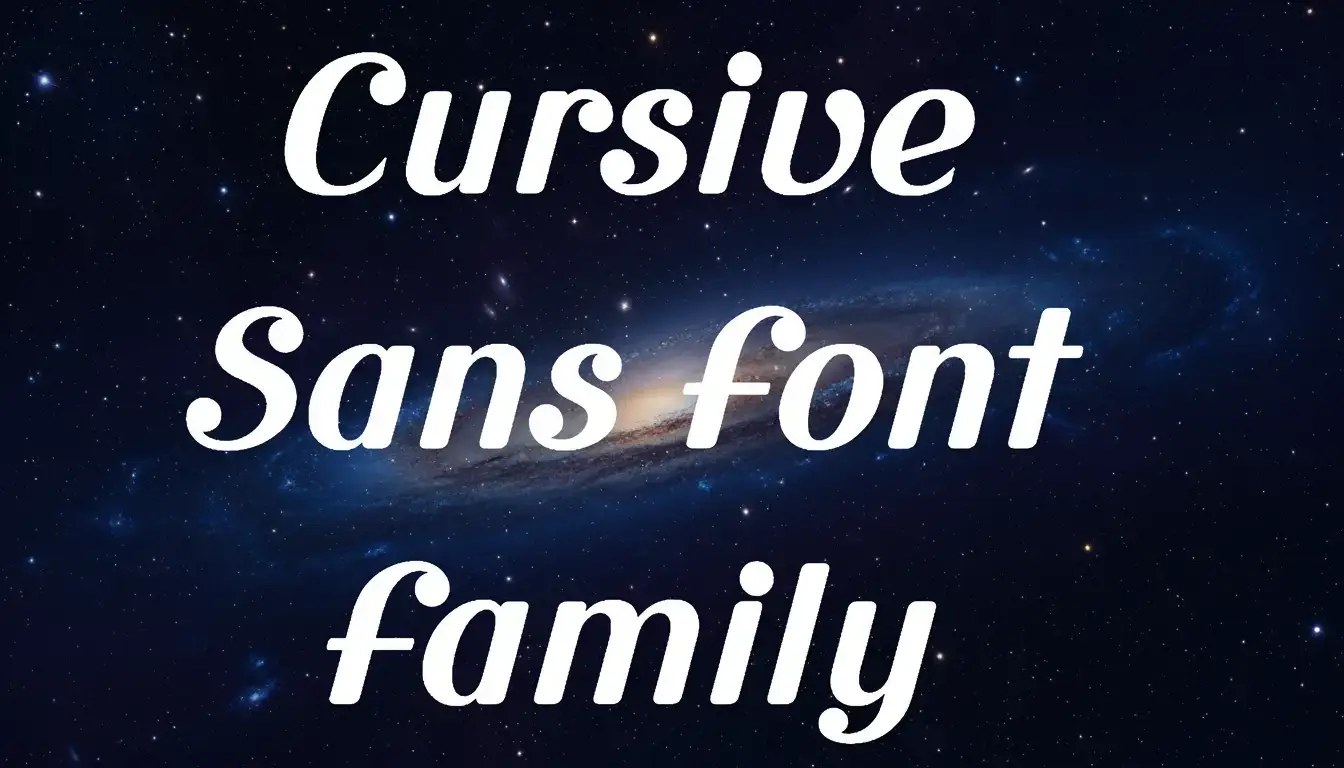
Cursive Sans Font Family
Cursive Sans Font Family is a fancy font made by Wojciech Kalinowski "wmk69". Bold and full of character, it's built to stand out rather than blend in. The free download includes two styles, and you can try every one of them with your own text in the preview above.
You get every letter from A to Z in both cases and all the numbers from 0 to 9, which means Cursive Sans Font Family can handle full sentences, dates and prices. Everyday marks like &, !, ? and @ are there too. Thanks to its accented letters, it also works for Spanish, French, German, Portuguese and Italian, not just English.
Cursive Sans Font Family is a natural fit for posters, logos and eye-catching headlines. Use it for one standout word or headline and let simpler fonts handle the rest. Because the family has more than one style, you can mix them in a single design for headings, subheadings and highlights.
Yes. Cursive Sans Font Family includes the accented letters needed for Spanish, French, German, Portuguese and Italian, so it works for more than just English.